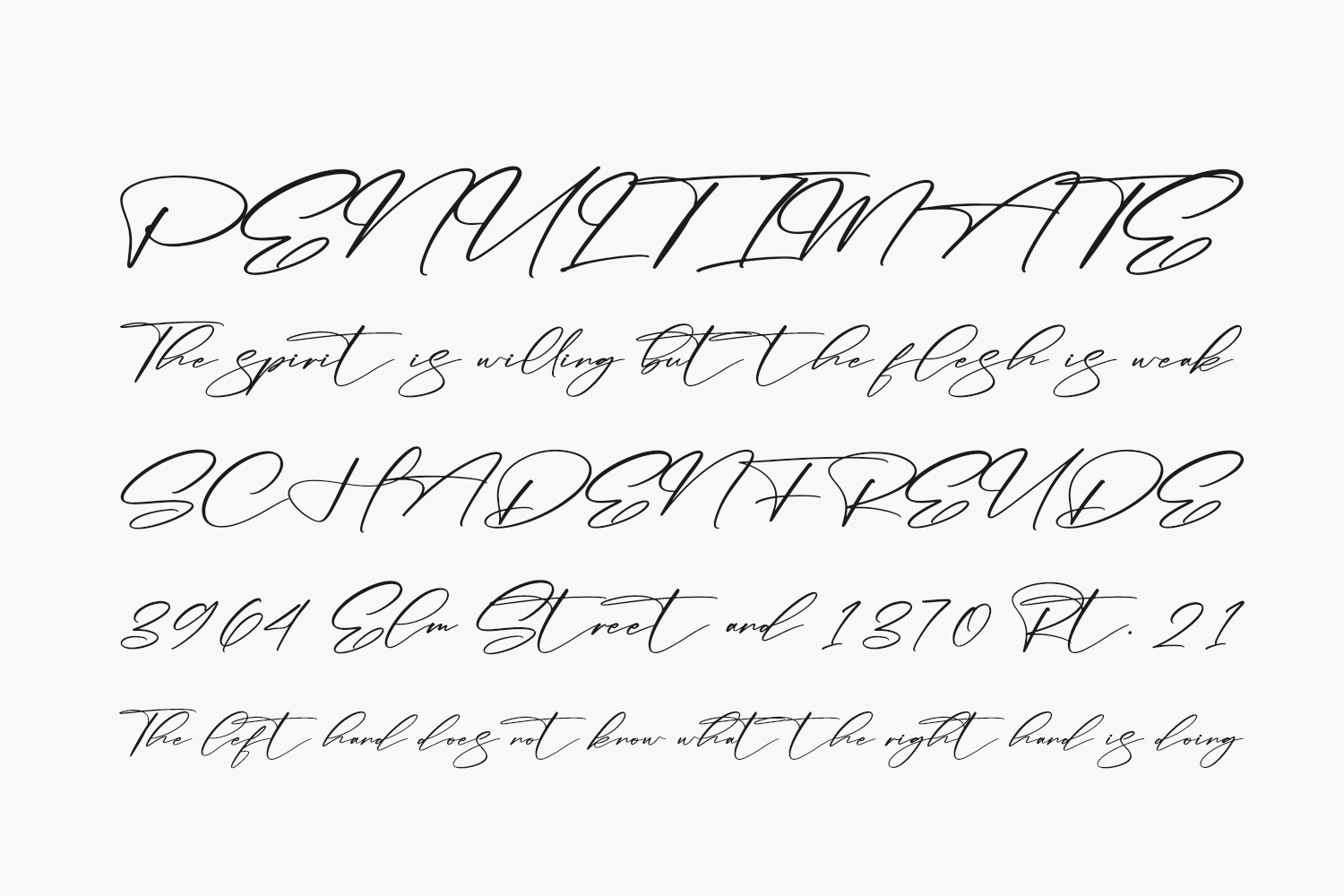
Ghalisha is a smooth and elegant script font designed by Letterena Studios to bring refined beauty and charm to your creative projects. With its flowing strokes and soft curves, this free handwritten font works perfectly for crafting stylish logos, wedding invitations, greeting cards, product packaging, and more. Available in OTF format with support for Latin characters — ideal for designers seeking a modern script font that blends sophistication with accessibility.
Why Choose Ghalisha?
- Elegant Style: Combines classic calligraphy with modern minimalism for a clean, timeless look.
- Ideal for Invitations: Perfect for wedding cards, RSVPs, or formal stationery sets needing a personal touch.
Where to Use Ghalisha?
Ghalisha shines across a variety of design applications:
- Logos & Branding: Adds elegance to brand identities of fashion labels, luxury brands, or boutique shops.
- Wedding Invitations: Brings class to formal stationery sets, envelopes, and bridal name tags.
- Social Media Quotes: Creates bold text overlays for Instagram Stories, Pinterest pins, and TikTok videos.
- Packaging Design: Ideal for cosmetic bottles, artisanal food labels, or handmade craft branding.
- Greeting Cards & Letters: Enhances the warmth of thank-you notes, birthday cards, or love letters.
Design Tips with Ghalisha